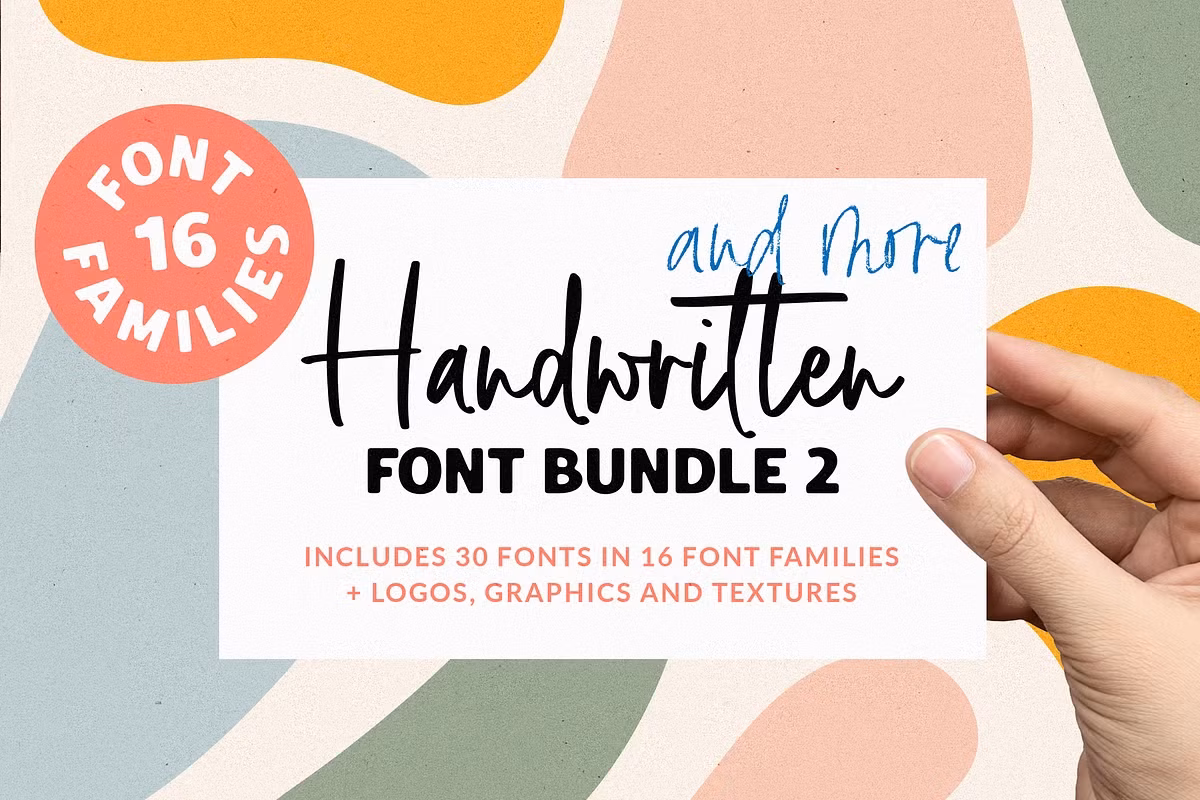
Handwritten Fonts and more Bundle Free Download
Handwritten Fonts and More Bundle Free Download
Handwritten Fonts and More Bundle Free Download is a beautifully curated collection of handcrafted typefaces perfect for adding a personal, expressive touch to your designs. Featuring a variety of signature scripts, playful doodle fonts, brush styles, and casual hand-lettered typefaces, this bundle is ideal for branding, invitations, quotes, social media posts, packaging, and creative DIY projects.
Each font in the Handwritten Fonts and More Bundle Free Download is designed to feel organic, authentic, and full of personality—whether you’re aiming for elegant, cute, rustic, or quirky vibes. Many fonts in the bundle include ligatures, alternates, and multilingual support to give you complete design flexibility.